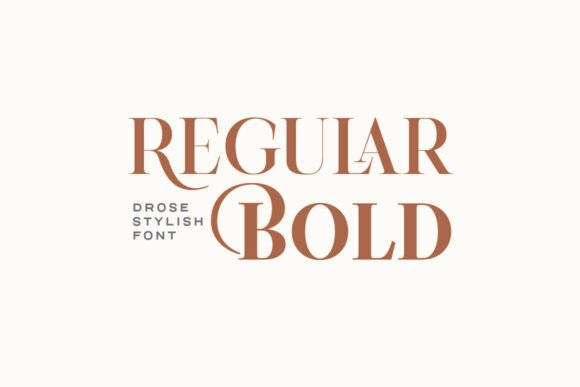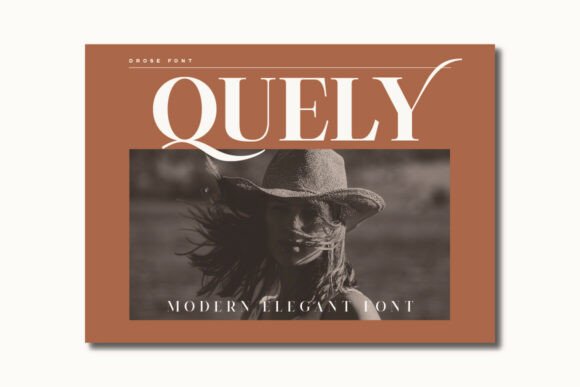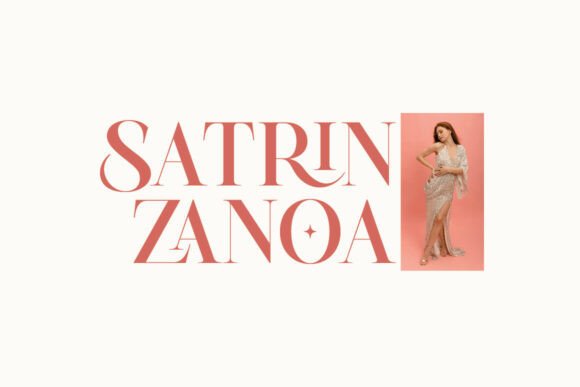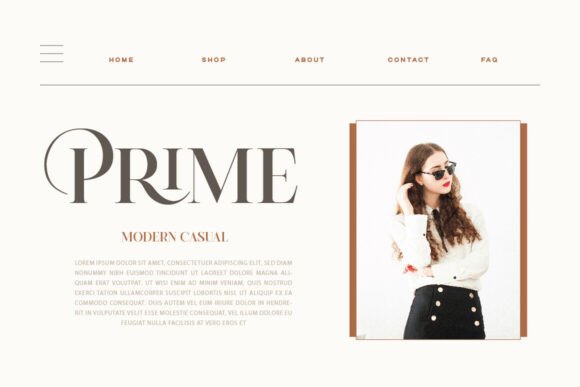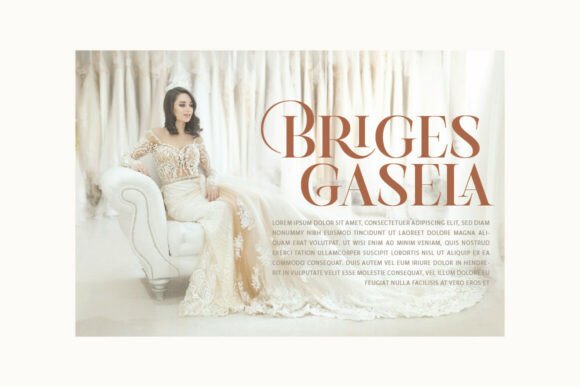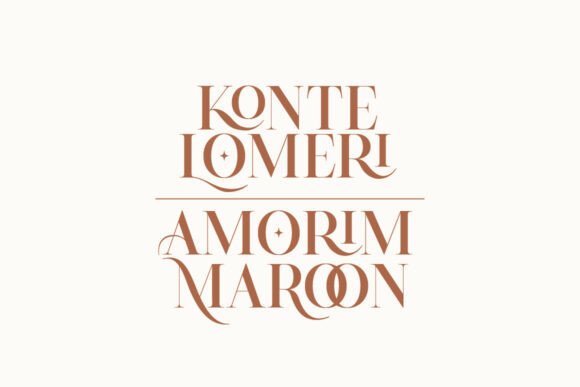
Drose Font: Elevate Your Design with Modern Luxury
In the world of typography, a well-crafted font can make all the difference in creating a lasting impression. For designers and crafters seeking to add a touch of elegance and sophistication to their projects, Drose Font is an exceptional choice. This modern luxury serif typeface boasts stylish curves and refined high contrast details, making it perfect for a wide range of applications.
The Essence of Drose Font
Drose is a carefully designed typeface that exudes class and refinement. Its sleek, modern aesthetic is characterized by stylish curves and high contrast details, which work in harmony to create a visually stunning effect. Whether you’re looking to create a luxurious logo, craft a sophisticated editorial layout, or design premium packaging, Drose Font is the perfect tool to help you achieve your goals.
Key Features of Drose Font
- Modern Luxury Serif Typeface: Drose Font is a contemporary serif typeface that embodies the essence of luxury and sophistication.
- Stylish Curves: The font features elegant curves that add a touch of refinement to any design.
- Refined High Contrast Details: The high contrast details in Drose Font create a visually striking effect, perfect for making a lasting impression.
- Classy, Clean, and Expressive: Drose Font is characterized by its classy, clean, and expressive design, making it perfect for a wide range of applications.
Drose Font is an incredibly versatile typeface that can be used in a variety of contexts. Some of the ideal applications for Drose Font include:
- Logos: Create a lasting impression with a luxurious logo that showcases your brand’s personality and style.
- Fashion Branding: Elevate your fashion brand with a sophisticated typeface that exudes elegance and refinement.
- Editorial Layouts: Add a touch of luxury to your editorial layouts, whether you’re designing a magazine, newspaper, or book.
- Invitations: Create stunning invitations that make a lasting impression with Drose Font’s elegant design.
- Magazines: Use Drose Font to add a touch of sophistication to your magazine designs, whether you’re creating a luxury lifestyle publication or a high-end fashion magazine.
- Premium Packaging: Elevate your packaging designs with a luxurious typeface that reflects your brand’s values and personality.
Why Choose Drose Font?
With so many typefaces available, why choose Drose Font? Here are just a few reasons why Drose Font stands out from the crowd:
- Timeless Beauty: Drose Font brings timeless beauty to contemporary design, making it perfect for designers and crafters seeking to create a lasting impression.
- Elegant and Sophisticated: Drose Font is characterized by its elegant and sophisticated design, making it perfect for luxury brands and high-end designs.
- Versatile: Drose Font is incredibly versatile, making it suitable for a wide range of applications and design contexts.
In conclusion, Drose Font is an exceptional choice for designers and crafters seeking to add a touch of elegance and sophistication to their projects. With its modern luxury serif design, stylish curves, and refined high contrast details, Drose Font is perfect for a wide range of applications. Whether you’re creating a luxurious logo, crafting a sophisticated editorial layout, or designing premium packaging, Drose Font is the perfect tool to help you achieve your goals.